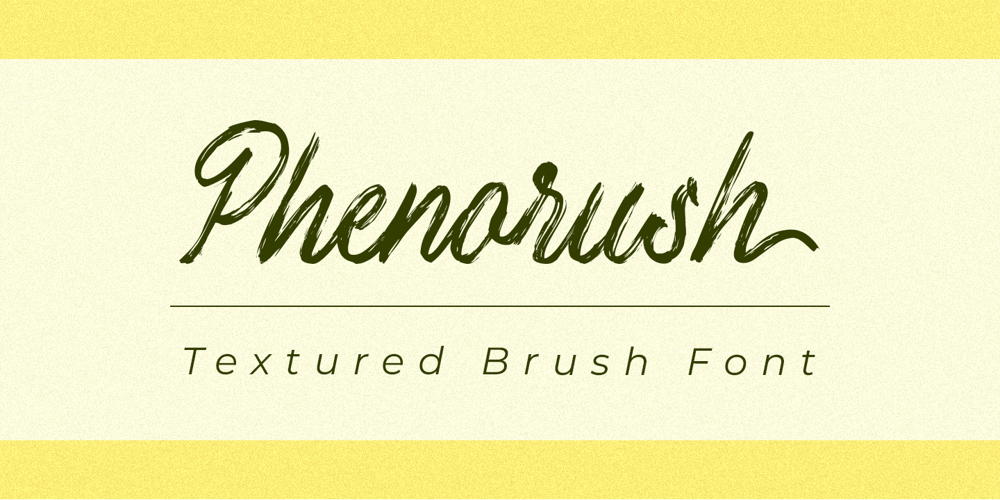
Phenorush
Phenorush font
Phenorush Font Family was designed by Rivo Dwi Adriansyah and published by Adriansyah. Phenorush contains 1 styles and family package options. Phenorush is an abbreviation of Phenomenon Brush, This font building based on hand brush calligraphy.This font is very suitable for any design project, you can make logo design, apparel design, mockup design, or easy to use to your content in your media social. There are some features including the font like terminal forms, ligatures, and alternates.